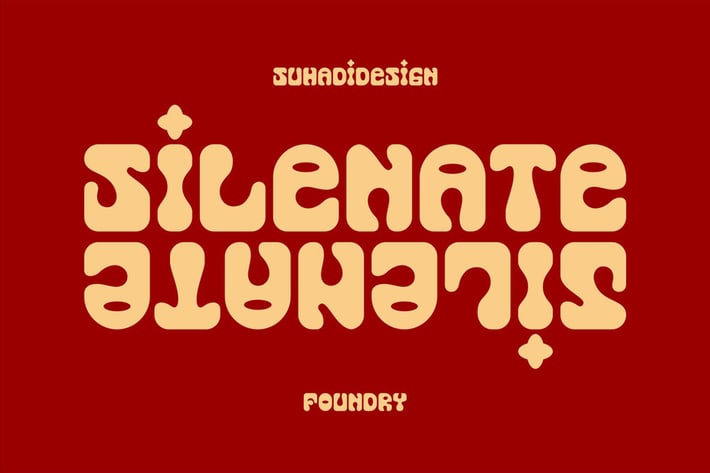
Silenate - Brand Logo Typeface Font
Hi Ladies and Gentlemen! Seeing the market for logo or branding typefaces, I designed a font that has your views in mind. Namely the Silenate font, which is a font with a logo or brand display. We made this font instant and easy to use. Silenate Font is a great choice for logos, brand names, branding, labels, packaging and other projects.
Font Features:
• All caps • Multilingual support • Numbers and punctuation